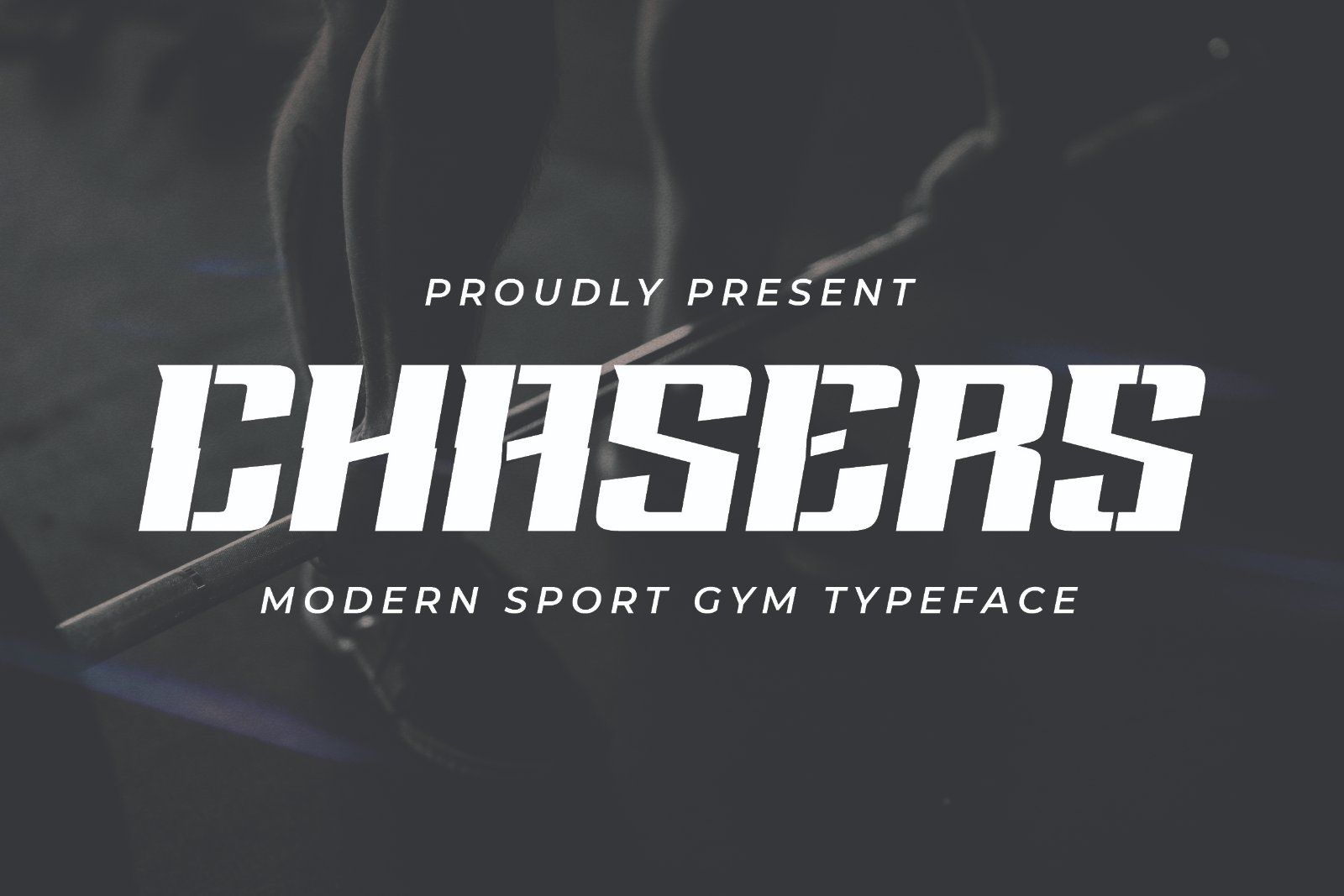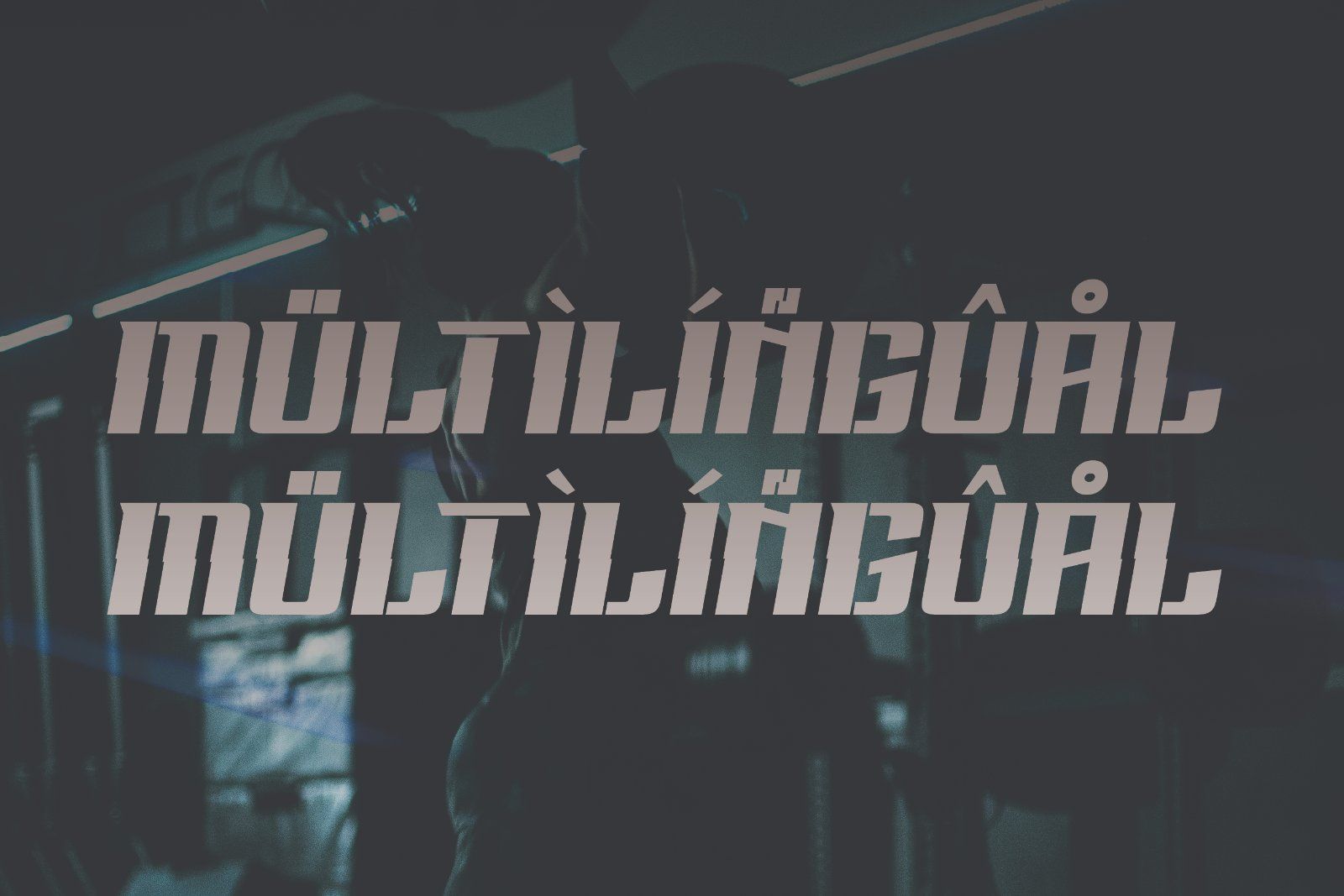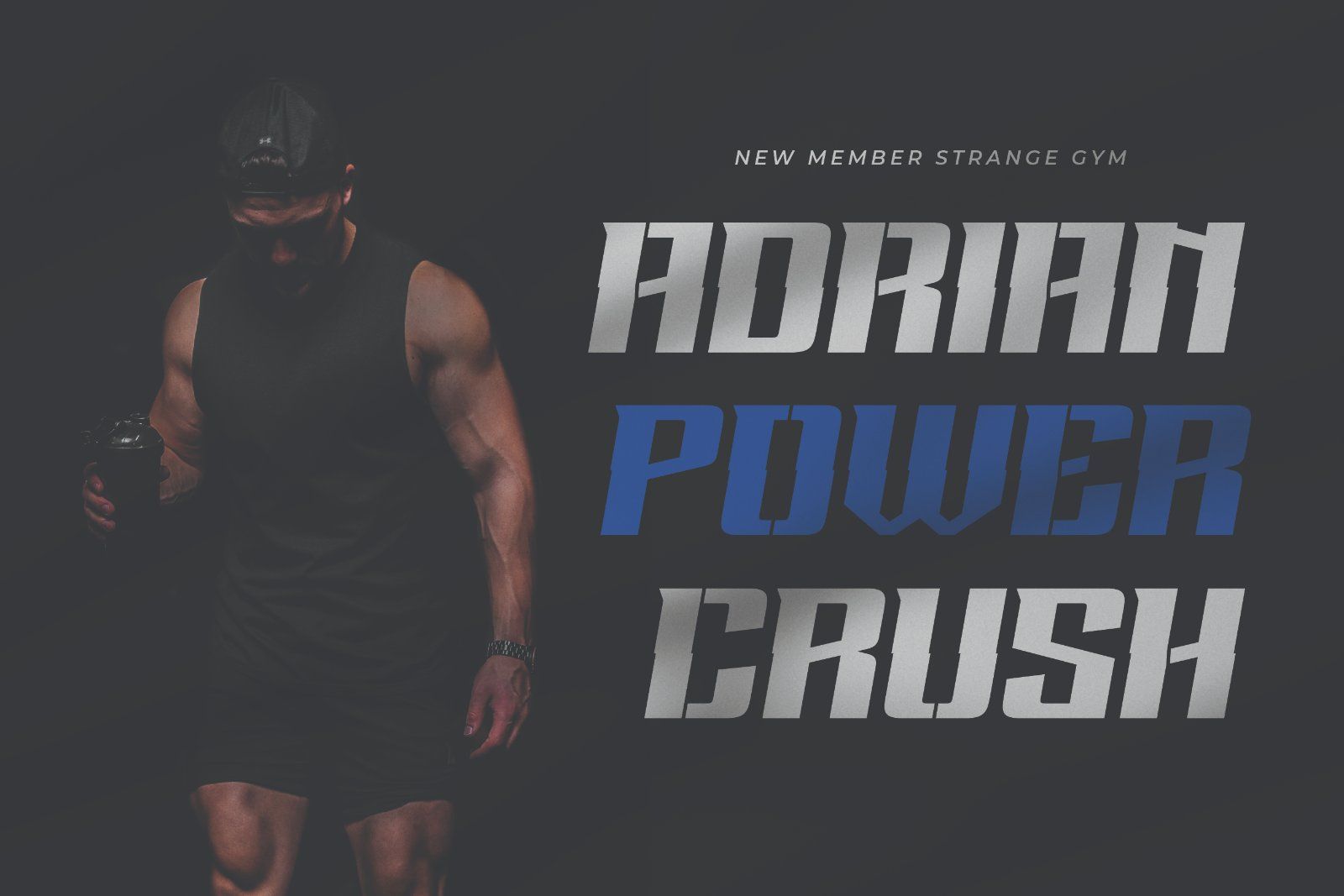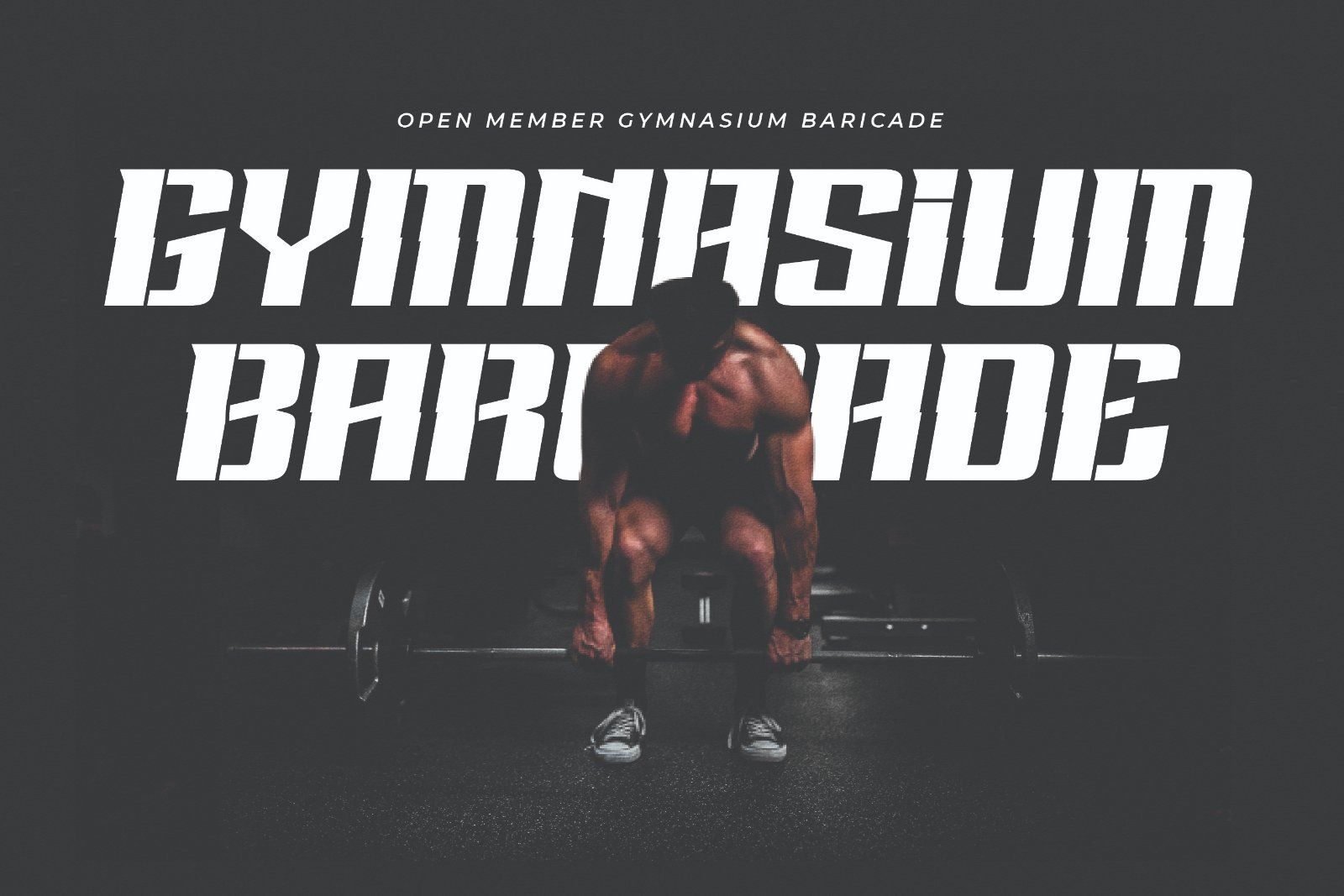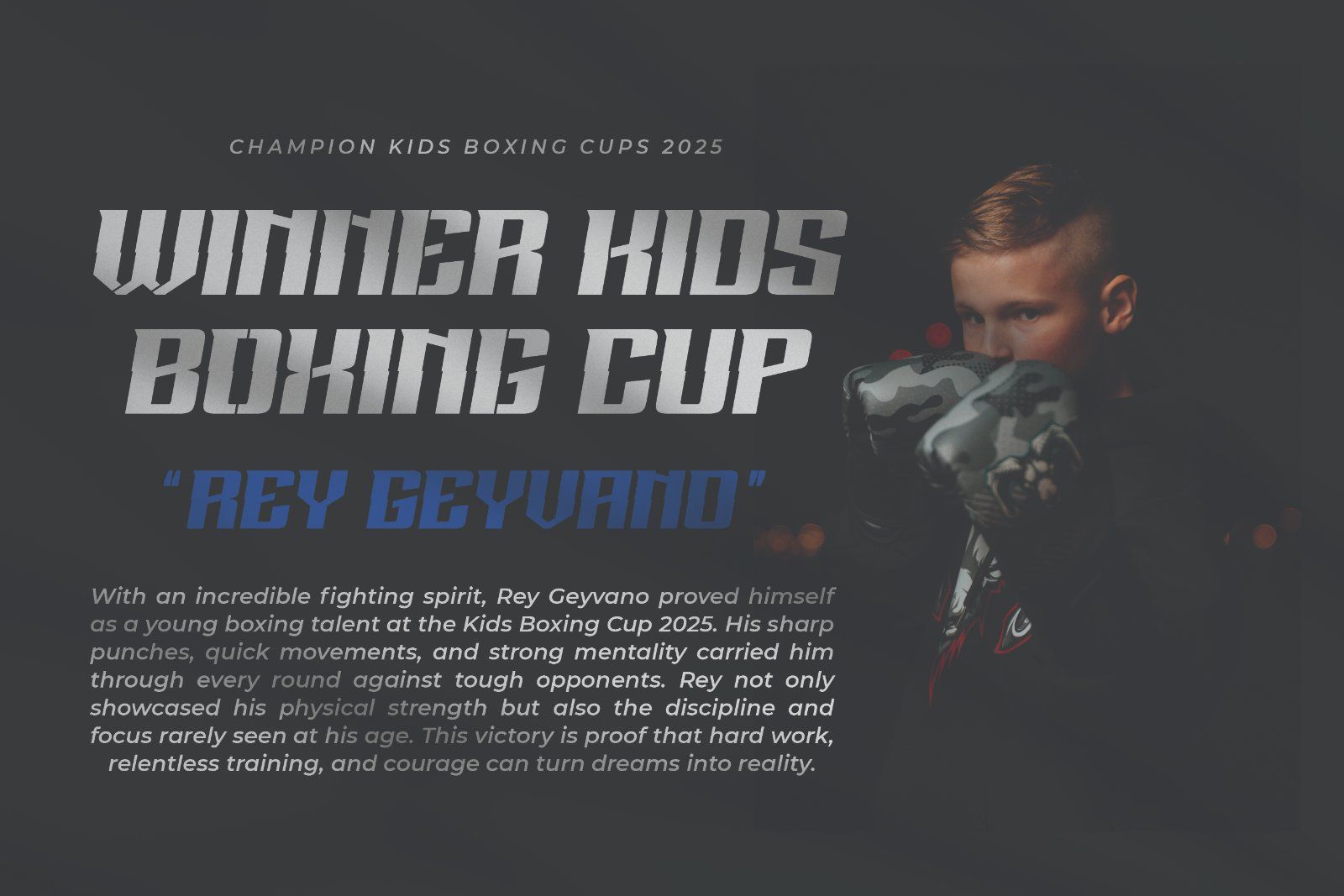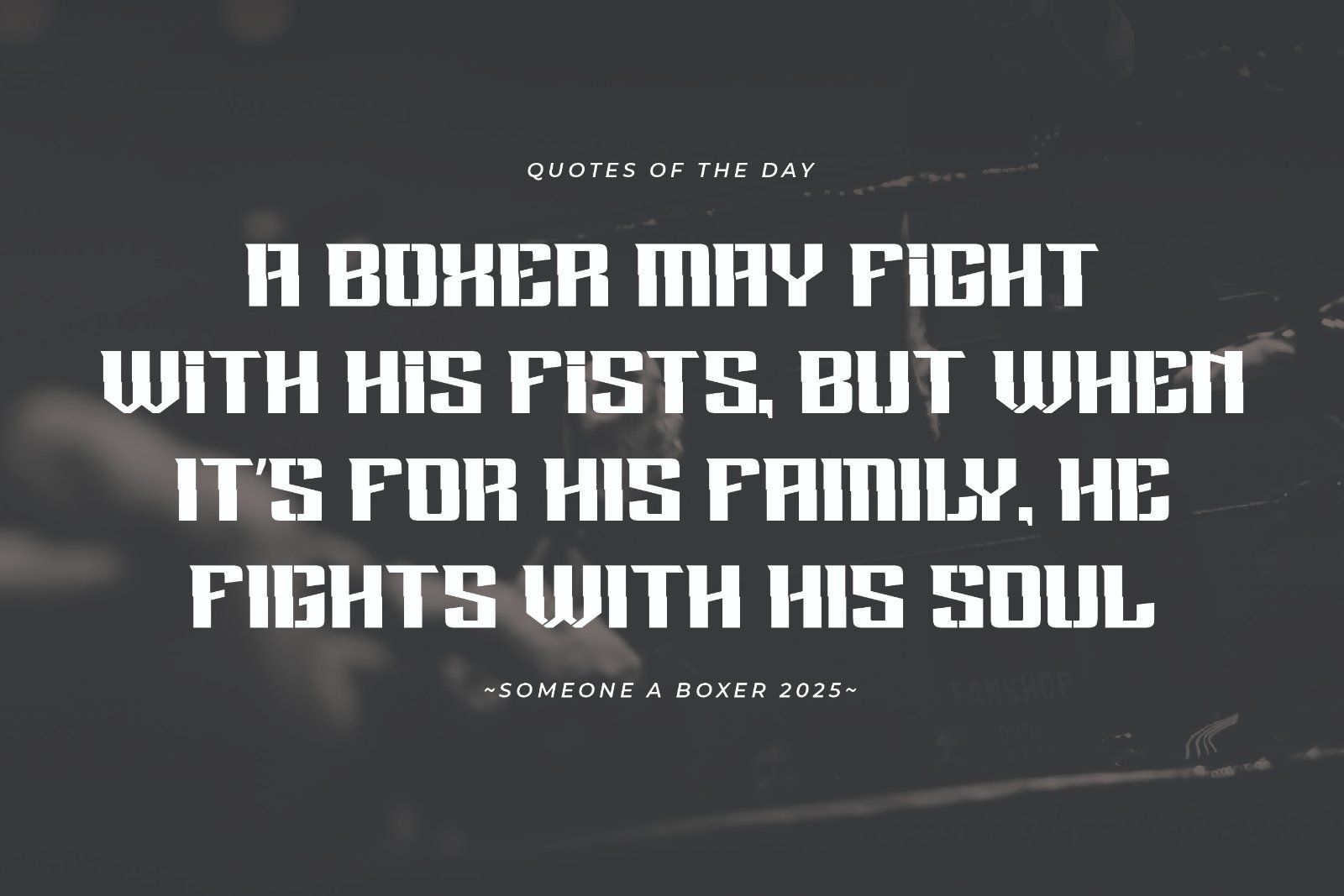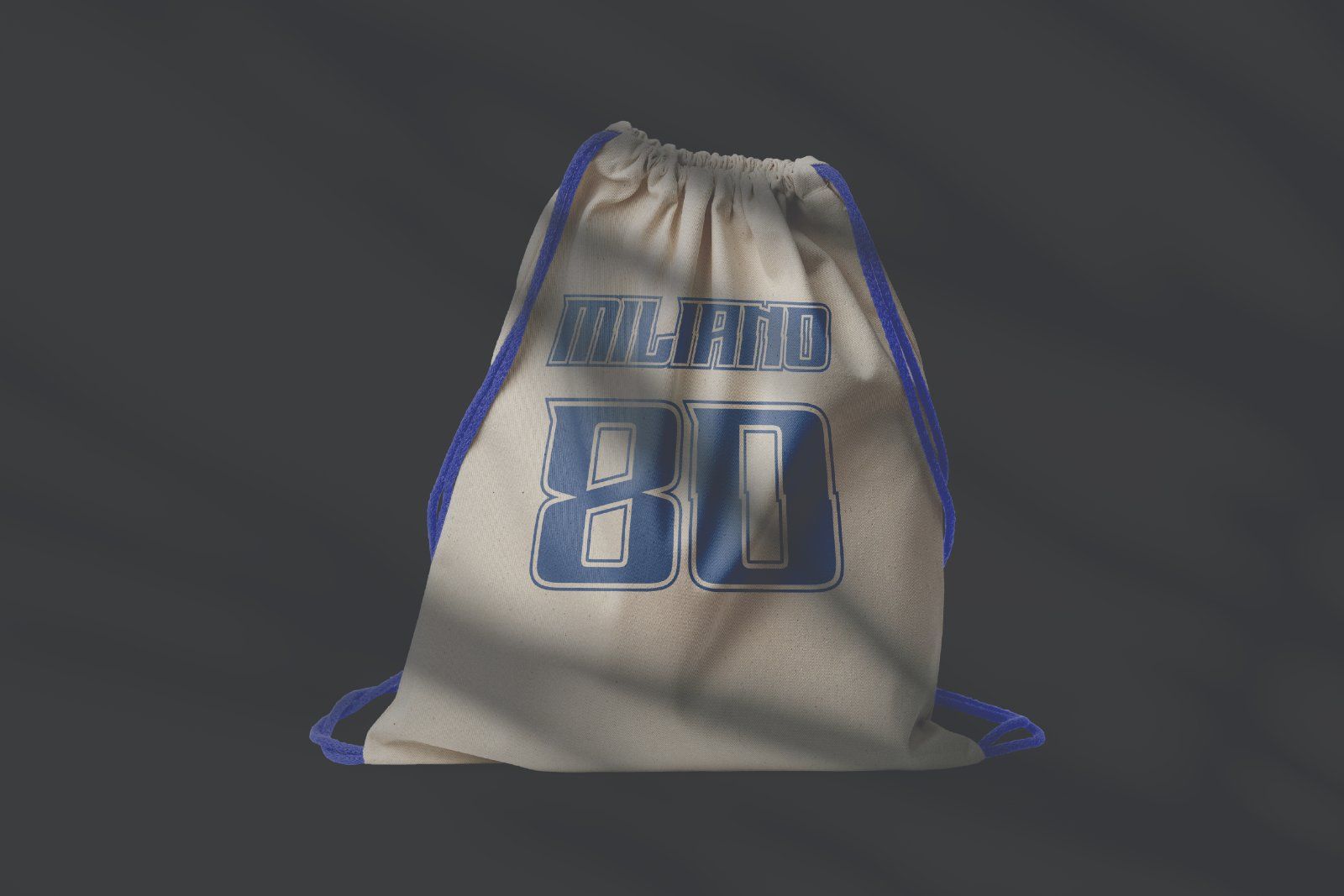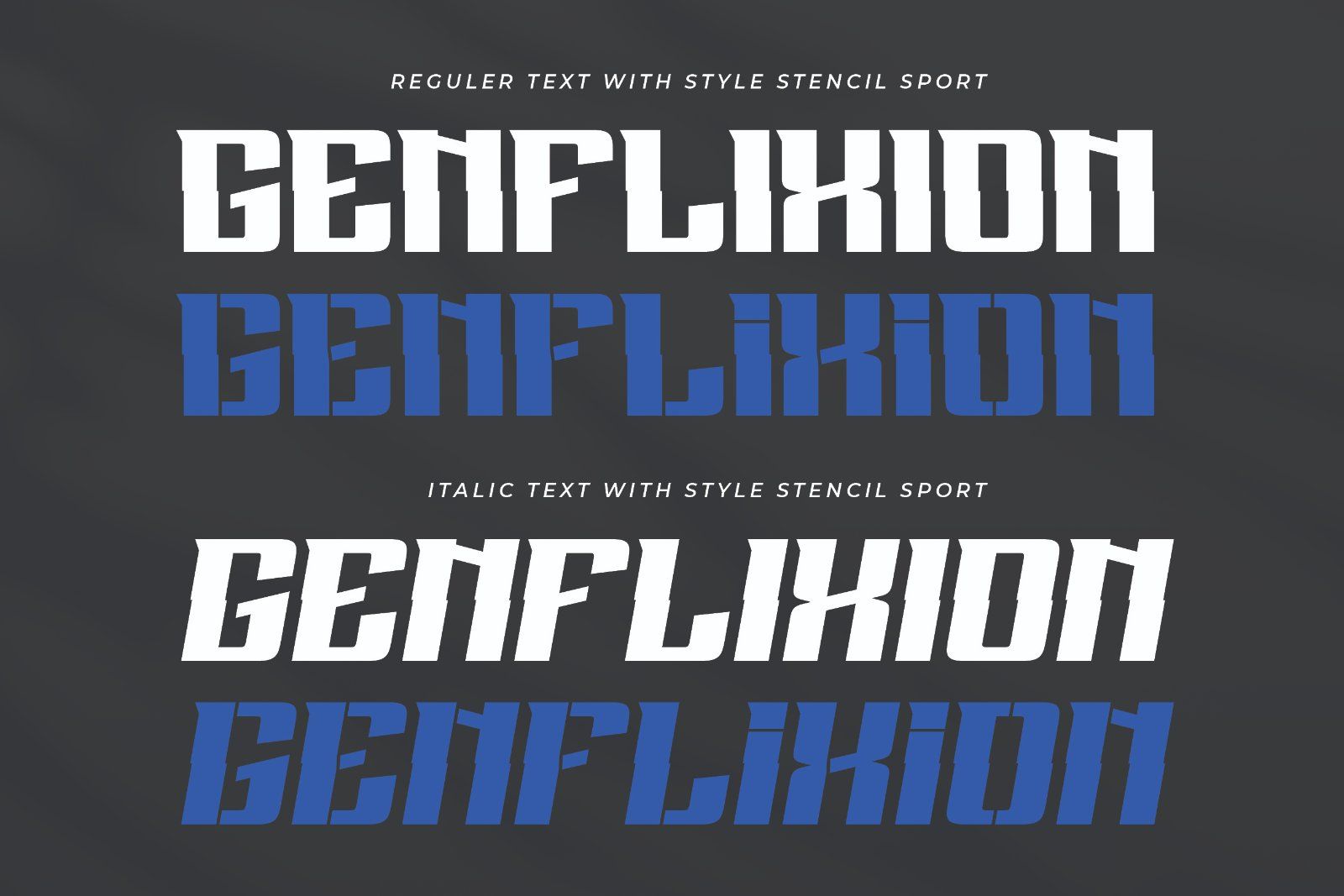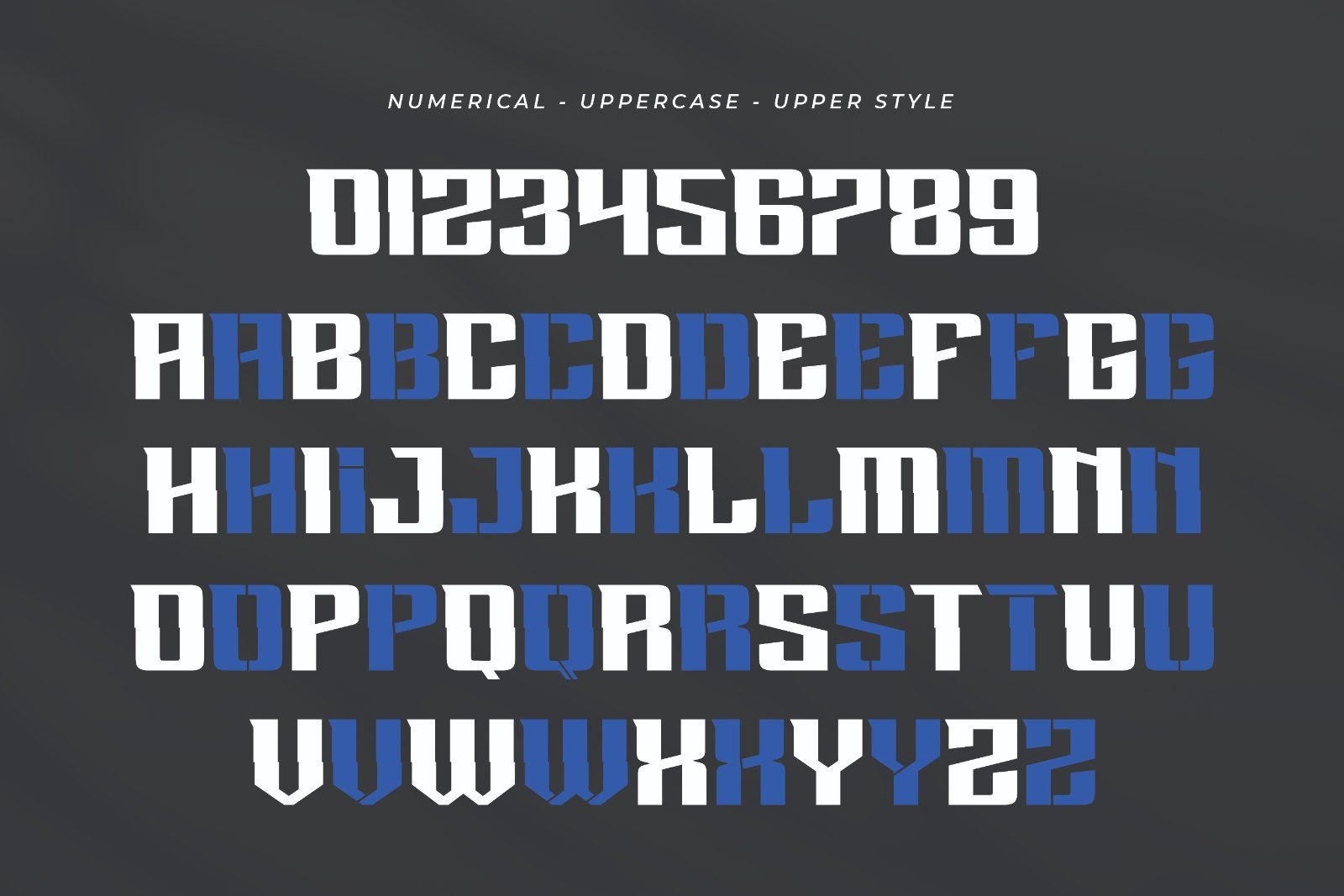
Chasers is a modern sport gym typeface built for strength and speed. With its bold, angular cuts and dynamic structure, this font brings the energy of athletic performance to your designs. Perfectly suited for gym branding, sports apparel, posters, and powerful headlines, Chasers delivers intensity in every letter.